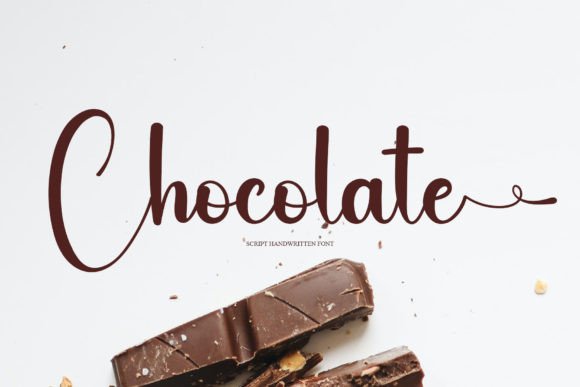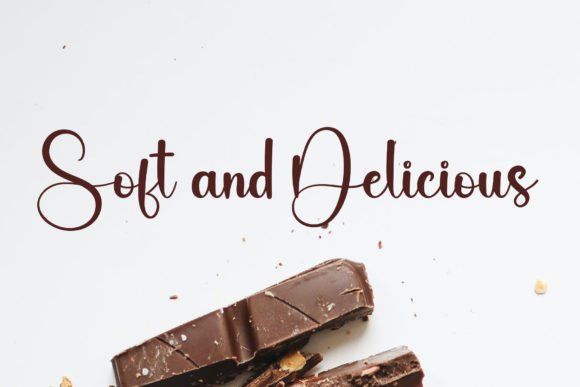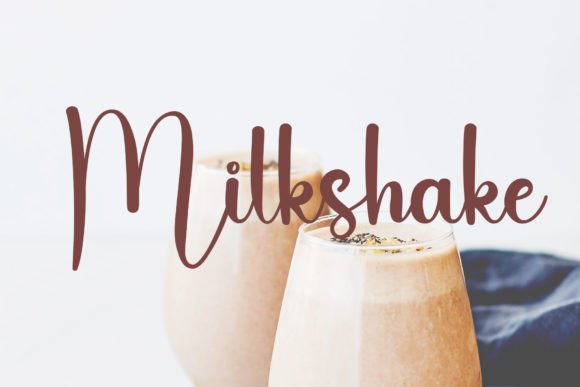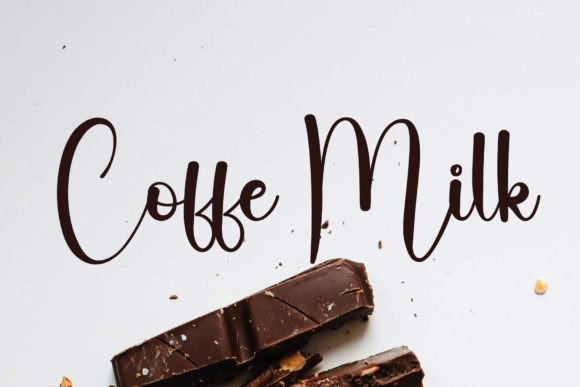
About Chocolate Font
Chocolate, a sweet and beautiful handwritten font, captivates with its charm and elegance. The characters of this font dance along the baseline, contributing to a playful yet sophisticated aesthetic that adds a touch of luxury to any design project you undertake.
The charm of Chocolate lies in its ability to infuse sweetness into the visual experience. Ideal for a variety of design projects, this font is particularly effective in conveying a sense of warmth and authenticity. Its handwritten style creates a personal touch, making it suitable for a range of applications, from invitations to branding and more.
The unique feature of characters dancing along the baseline imparts a dynamic and lively quality to Chocolate. This playful element enhances the font’s versatility, allowing it to adapt seamlessly to different design contexts. Whether used in digital or print media, Chocolate maintains its visual appeal, making it an excellent choice for those seeking to add a touch of sophistication to their projects.
The luxury spark that Chocolate brings to design projects is noteworthy. Whether applied to product packaging, branding materials, or any creative endeavor, this font elevates the overall aesthetic, making a lasting impression. Its handwritten charm creates a connection with the audience, adding a layer of authenticity that resonates with discerning viewers.
In summary, Chocolate is not just a font; it’s a design asset that infuses sweetness, beauty, and luxury into your creative projects. Its handwritten style, combined with characters that dance along the baseline, creates a visual allure that is sure to captivate. Chocolate is a delightful choice for anyone looking to add a touch of charm and sophistication to their design toolbox.